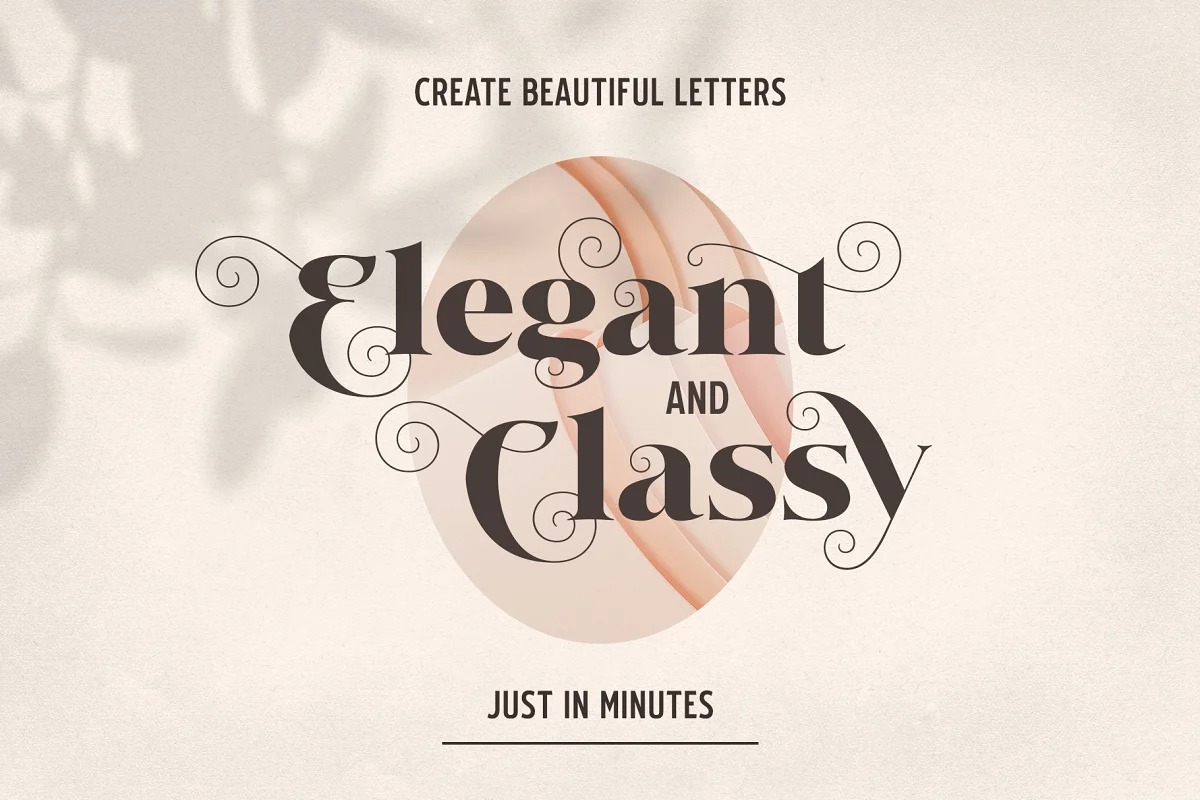
Reglona Font
Reglona Serif Font is a special modern style typeface. Made with accurate accuracy with beautiful curves. Reglona contains 400+ alternate characters you can play with. Reglona perfectly suited for Headlines, Logotypes, Titles, Packaging Designs, Quotes, and other graphic design projects. Lastly, Reglona comes with bonus font for pairing.